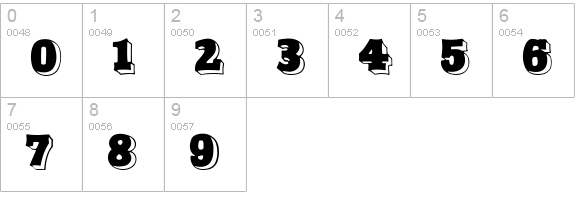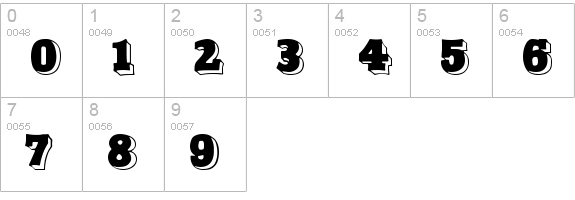
North Face Display Caps SSi Font Details
The North Face Display Caps SSi font is a bold and distinctive typeface that exudes strength and modernity. Its sleek lines and sharp edges make it perfect for conveying a sense of power and authority in any design project. This versatile font is ideal for headlines, logos, and branding materials, as it commands attention and leaves a lasting impression. What's even better is that the North Face Display Caps SSi font is available for free download at FontsMarket.com. This means you can easily access this high-quality font and use it in your projects without any cost. Don't miss out on the opportunity to elevate your designs with this exceptional typeface - download it today and make a statement with North Face Display Caps SSi!